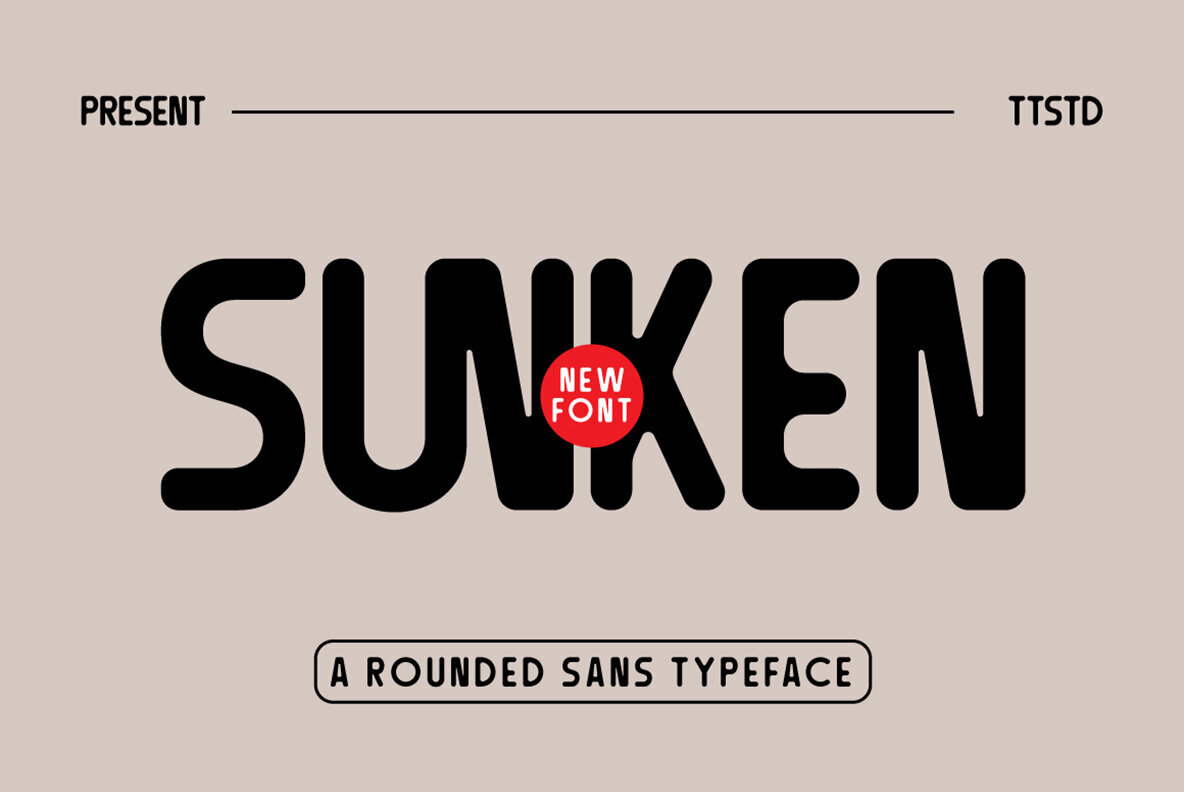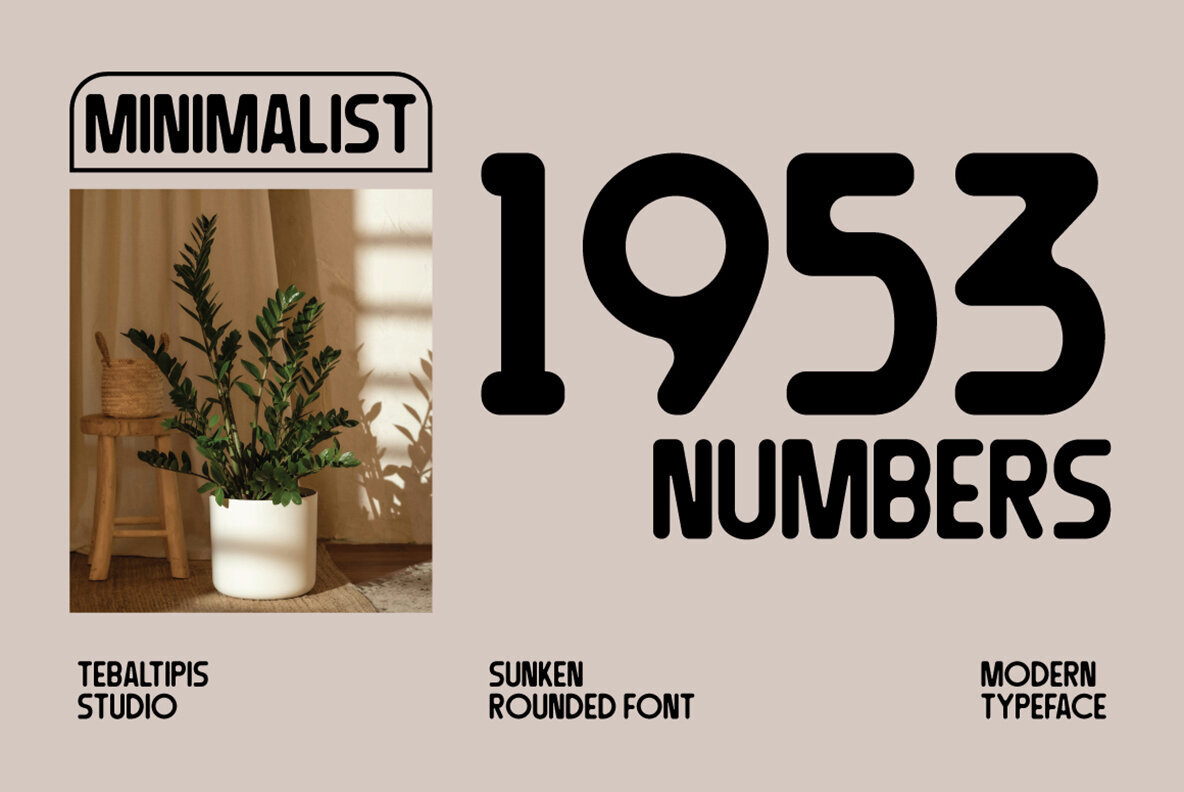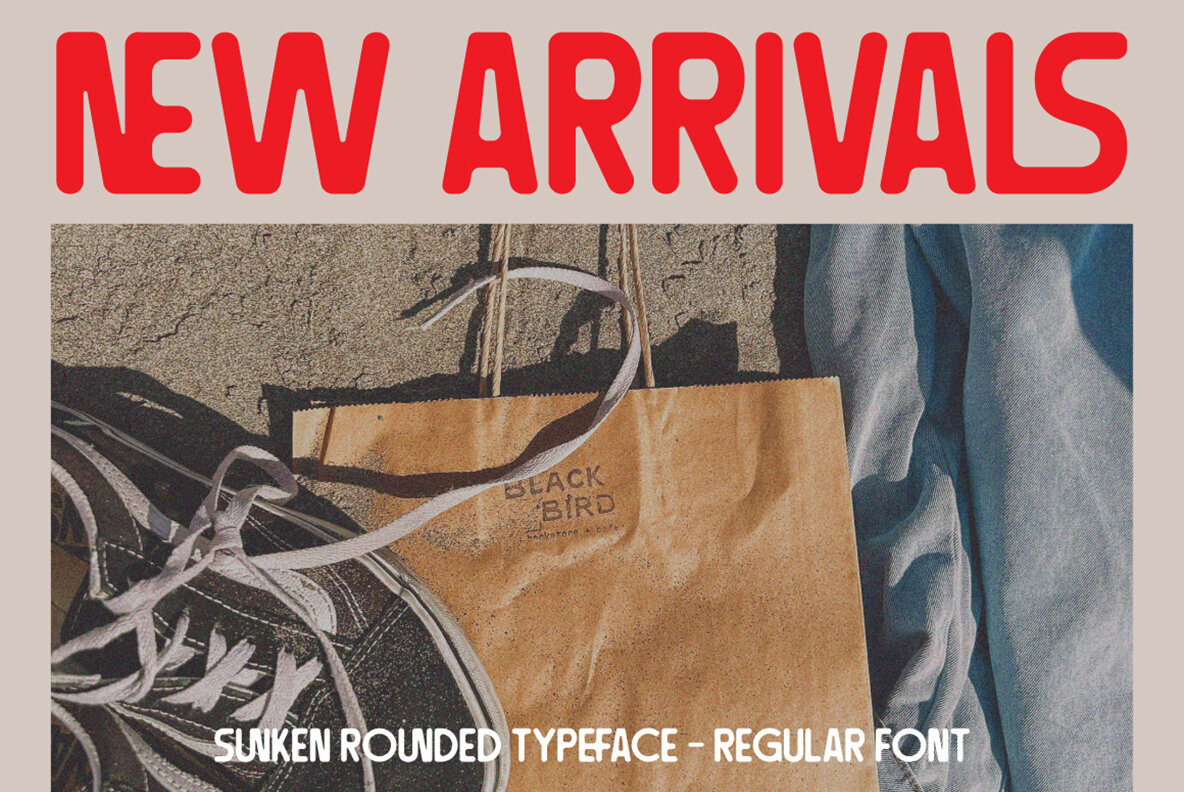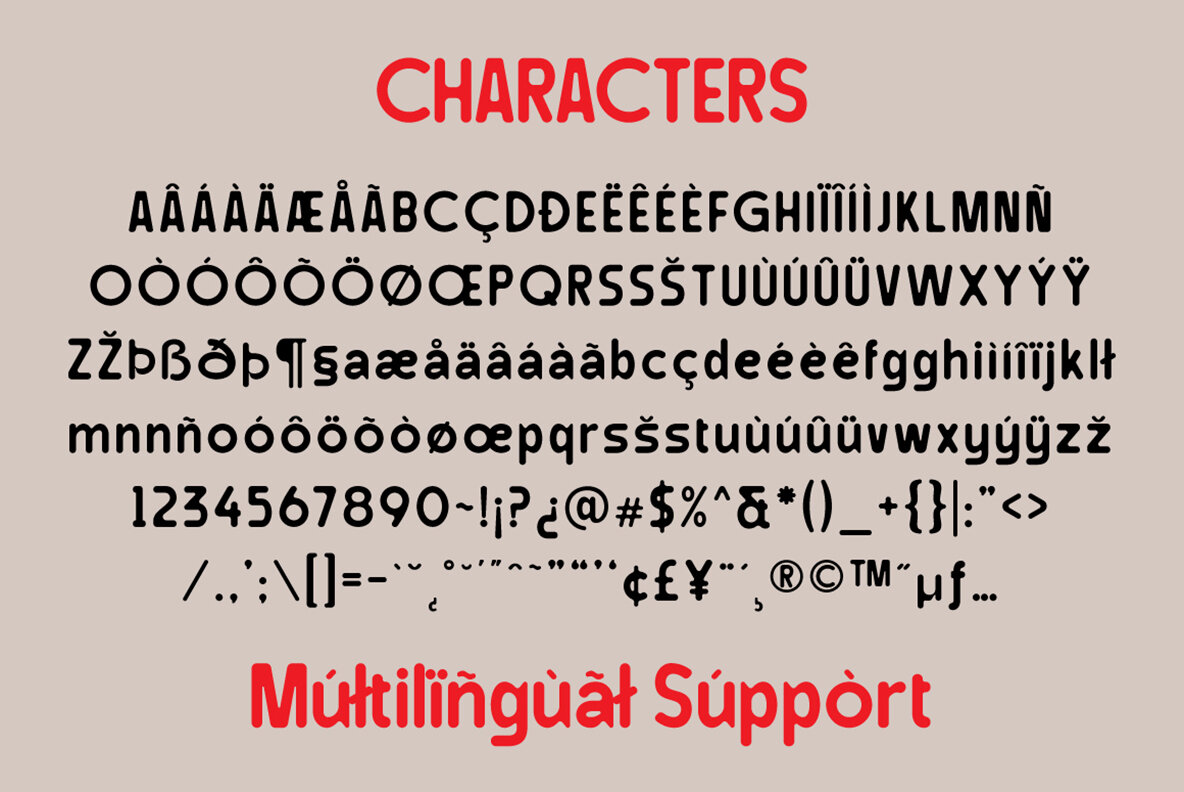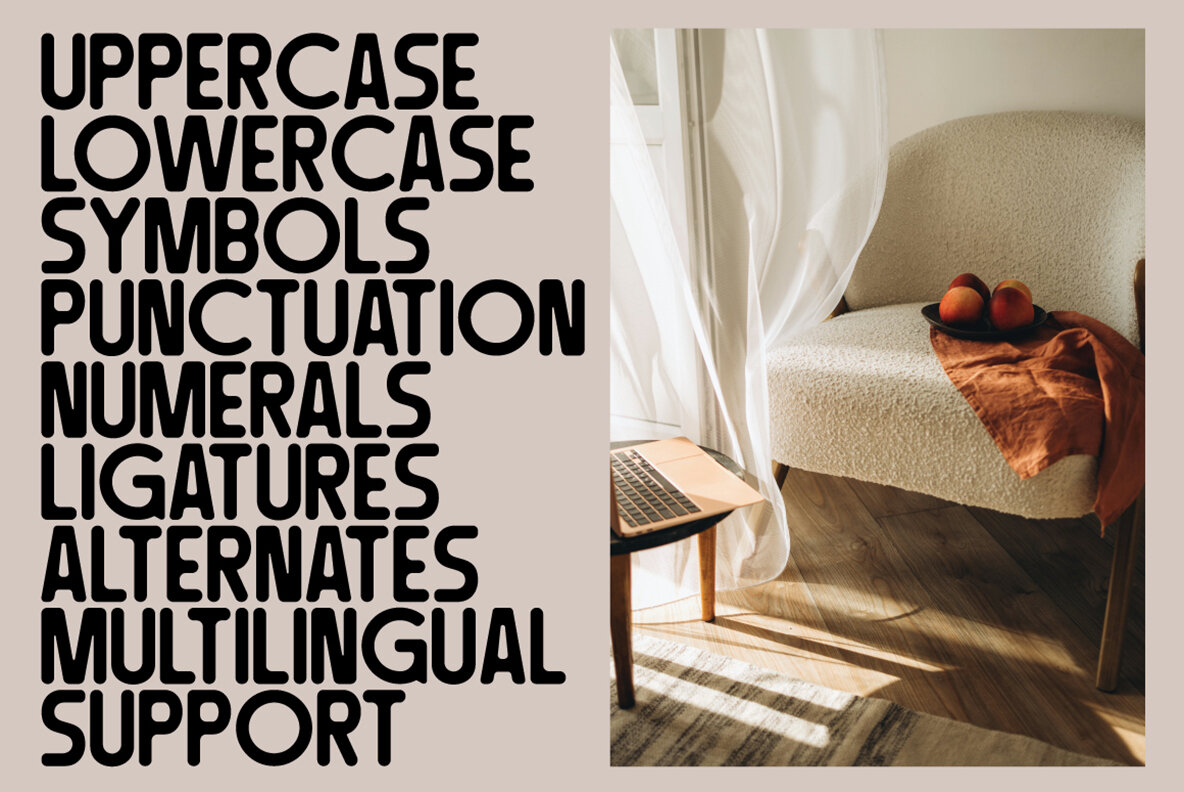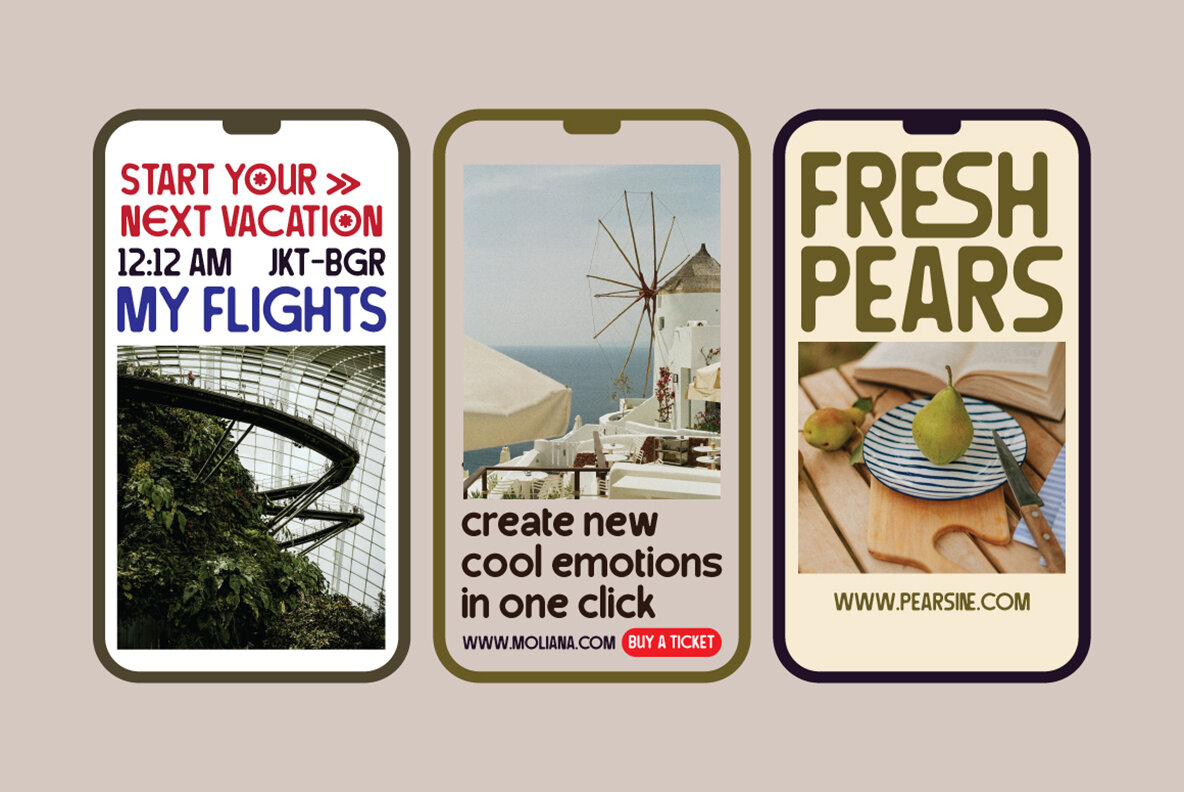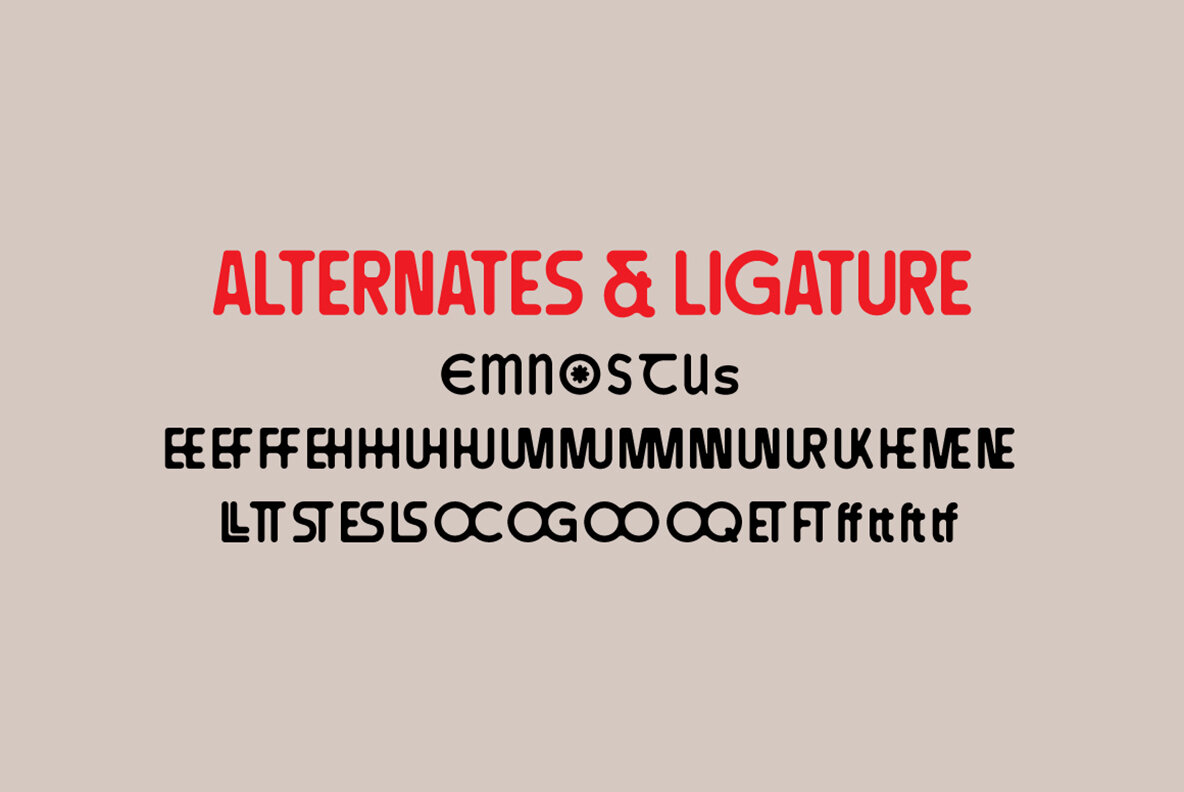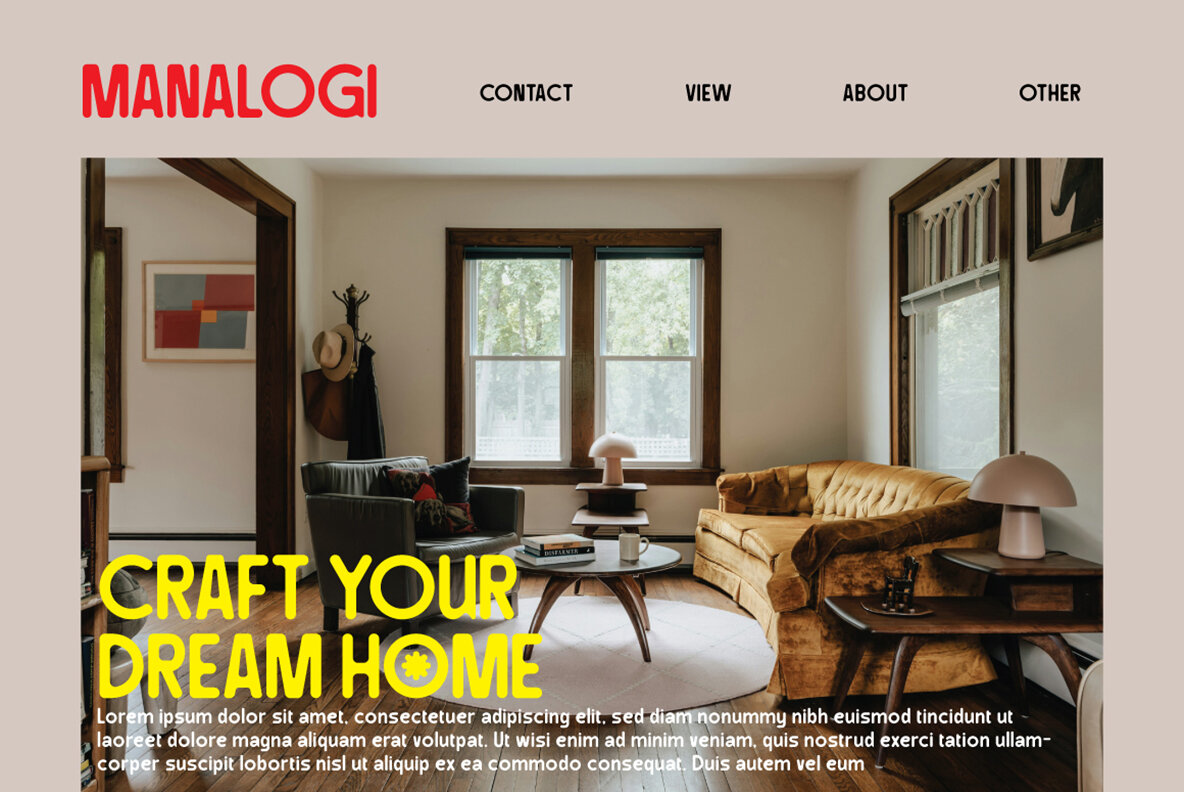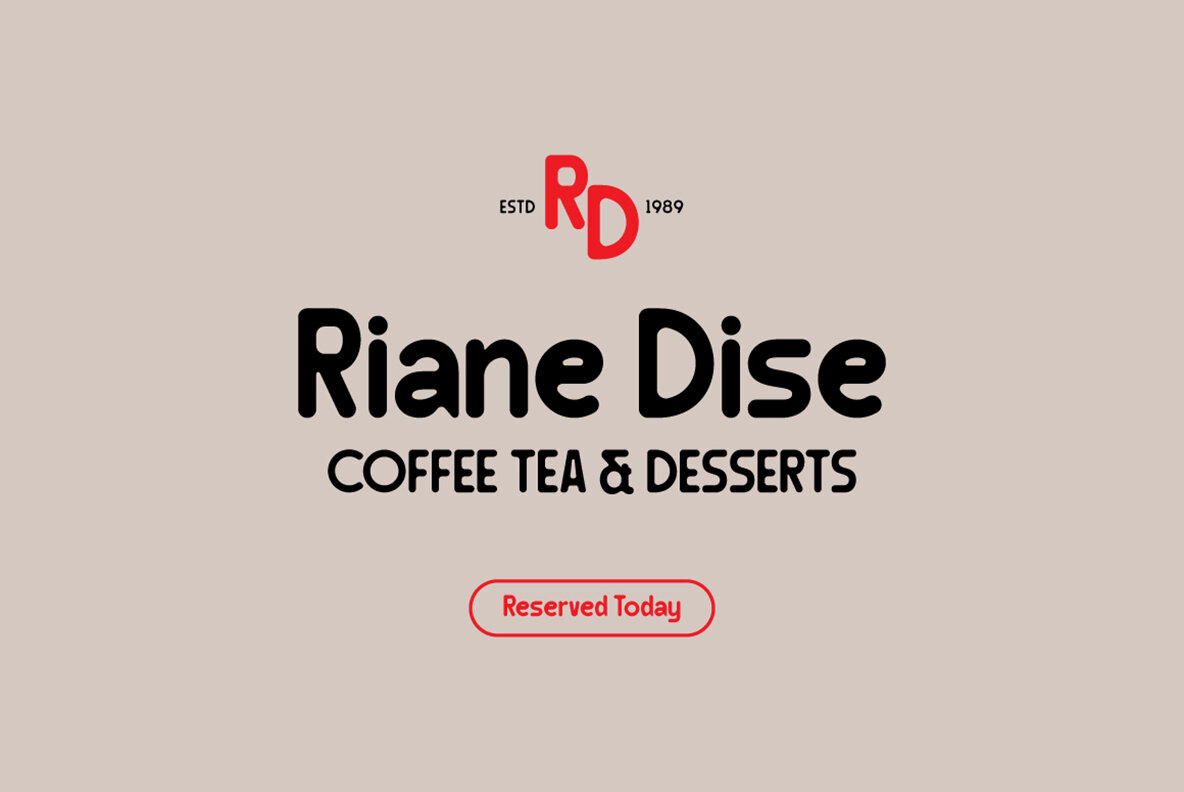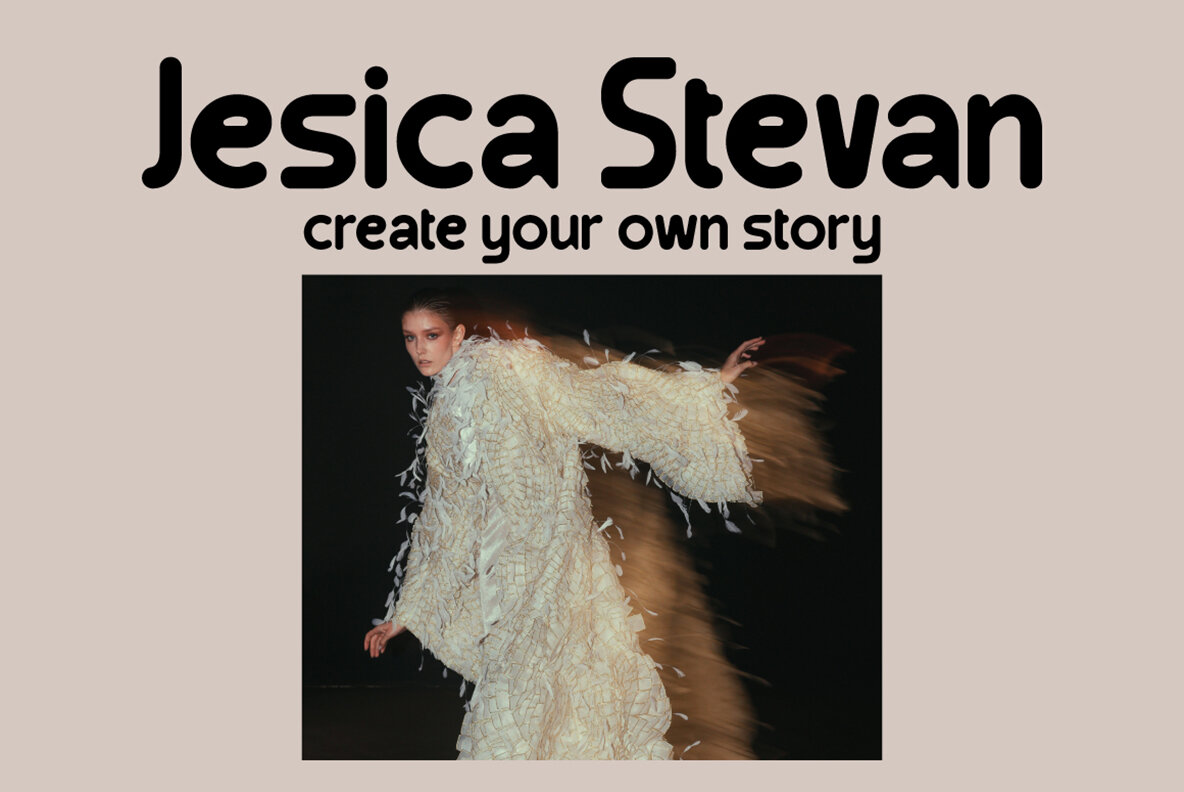
Sunken Font
Sunken Rounded Regular
Sunken Rounded Font is an appealing choice for digital and graphic designers seeking a rounded sans-serif typeface. Its versatility allows it to complement a wide array of projects, ensuring that your creative ideas truly stand out. With over 250 glyphs, Sunken provides a rich set of alternative characters, thoughtfully categorized into OpenType features such as swash, stylistic sets, stylistic alternates, and ligatures.